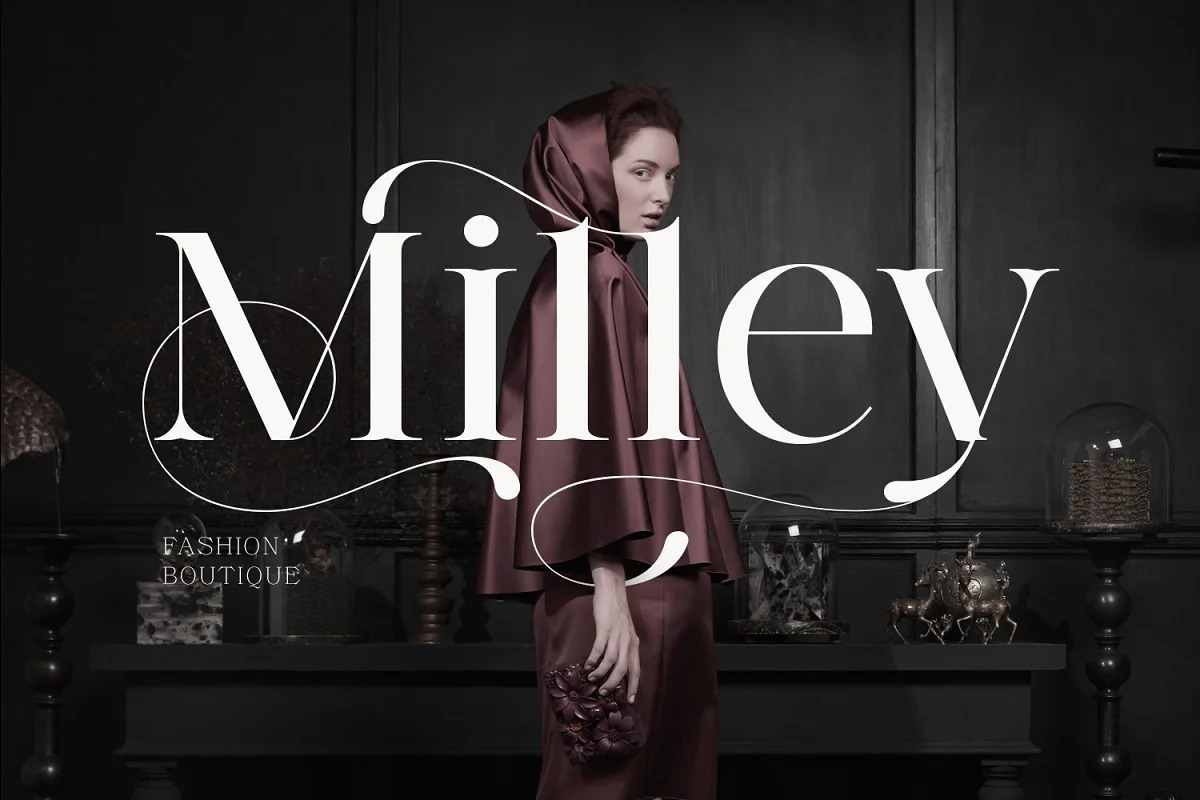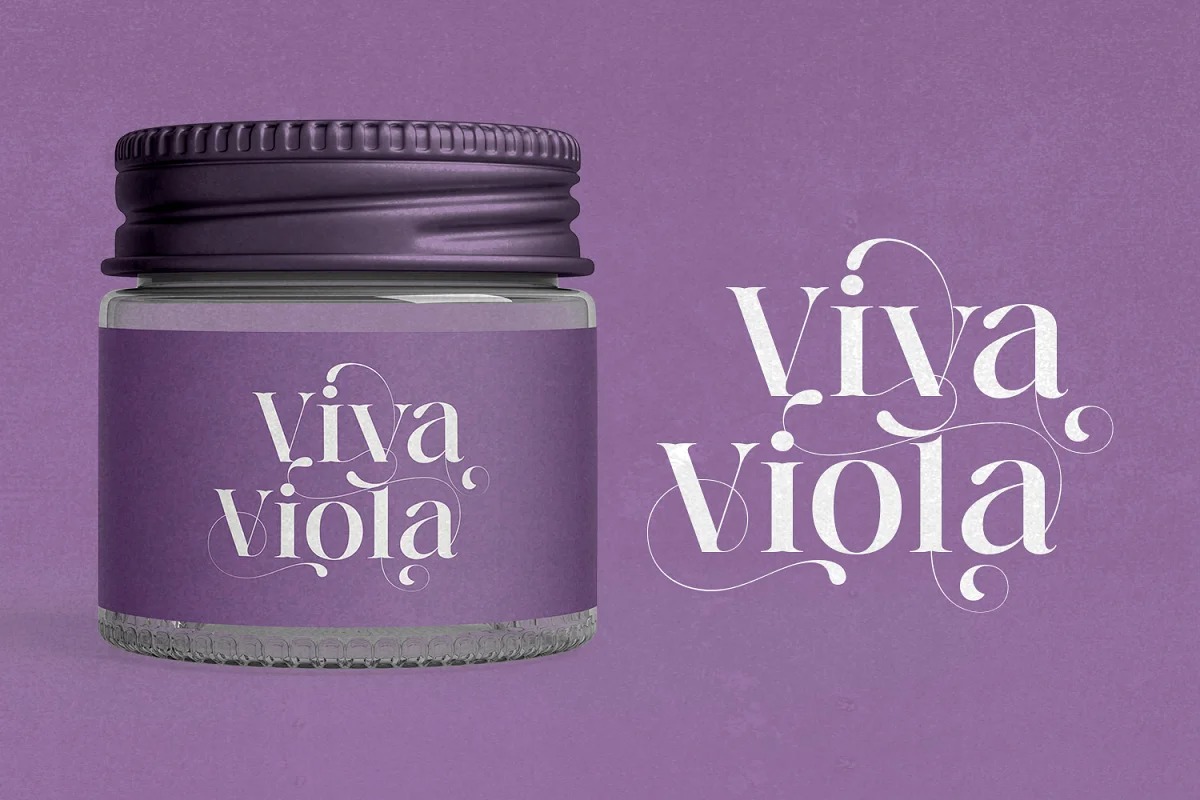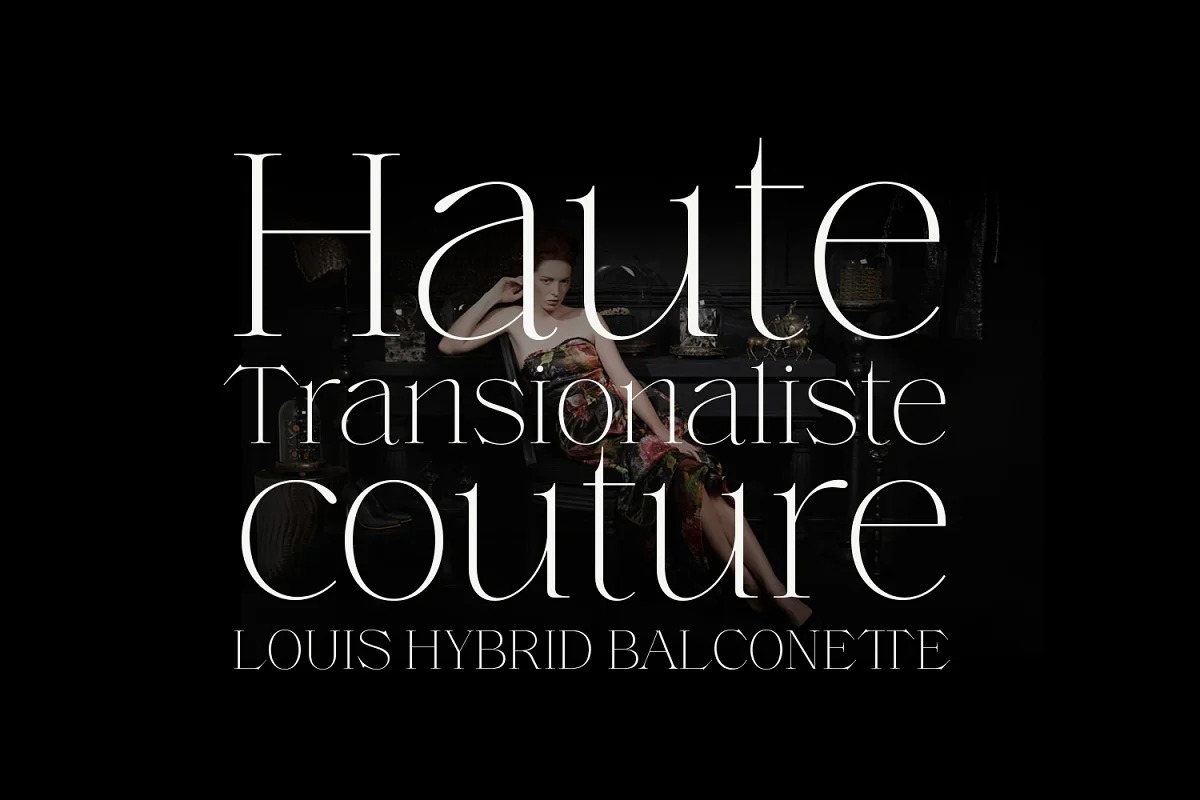
Voire Serif Font
A serif display font it has both modern and retro look. Made from font designer named creativemedialab. Voire comes with two versions display and Regular, and it has nine weights from thin to Black with tons of alternates and ligatures
This modern pretty serif family is perfect for all sorts of elegant designs like wedding invitations but can also work great for logo, branding, website font, and headers, or product labels. It’s easy to read, and the alternates are visually attractive.